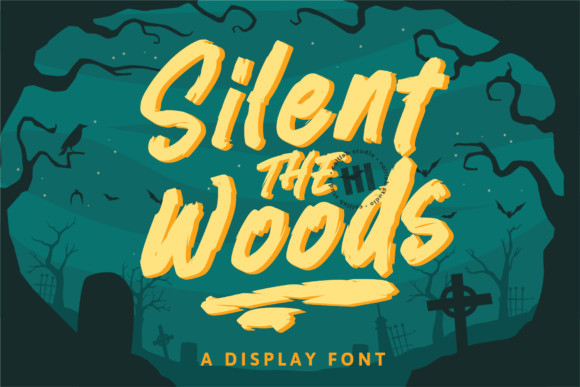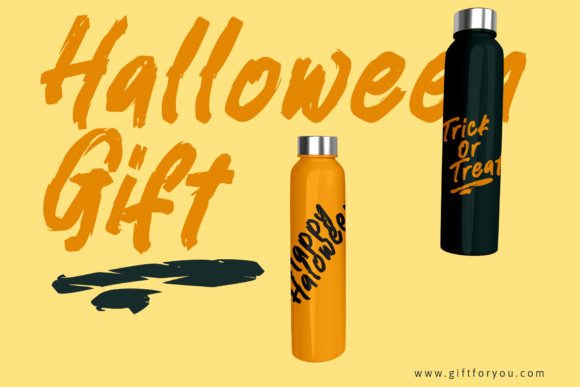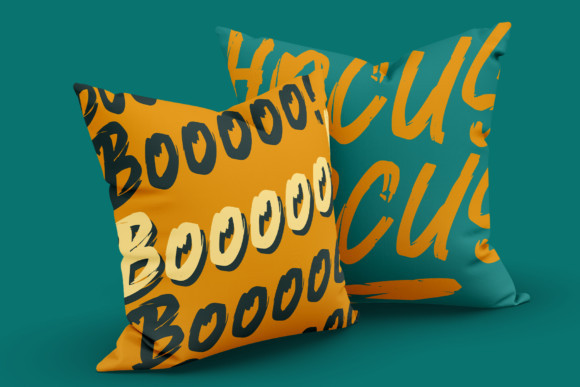
Silent The Woods Font
Silent the Woods is a bold display font, created with the help of an unique brush pen. This dazzling display font will turn any creative idea into a standout!